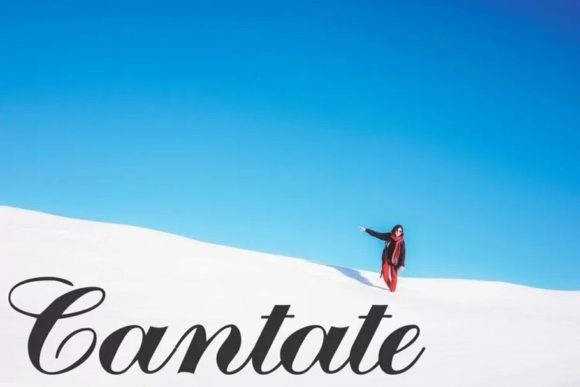
Cantate Font: The Ultimate Choice for Bold and Expressive Designs
In the world of typography, fonts play a crucial role in conveying the tone and personality of a design. When it comes to making a statement, a bold and expressive font is essential. This is where Cantate Font comes in – an extra bold script typeface that brings a unique and dynamic vibe to your designs. In this article, we’ll explore the features and benefits of Cantate Font, and why it’s the perfect choice for designers and crafters looking to elevate their projects.
The Power of Bold Typography
Cantate Font is all about making a statement. Its thick, distinctive strokes add a touch of personality to headlines, posters, and branding, making it a great choice for projects that demand attention and a strong visual impact. Whether you’re designing a logo, creating a poster, or crafting a brand identity, Cantate Font is the perfect tool to help you stand out from the crowd.
Key Features of Cantate Font
- Extra Bold Weight: Cantate Font features an extra bold weight that makes it perfect for headlines, titles, and other display text.
- Script Typeface: Cantate’s script typeface adds a touch of elegance and sophistication to your designs, making it perfect for luxury brands, high-end products, and creative projects.
- Distinctive Strokes: Cantate’s thick, distinctive strokes add a unique and dynamic vibe to your designs, making it perfect for projects that demand attention.
- Highly Legible: Despite its bold weight, Cantate Font is highly legible, making it perfect for use in a variety of design applications.
Use Cases for Cantate Font
Cantate Font is a versatile typeface that can be used in a variety of design applications. Here are some use cases where Cantate Font shines:
- Headlines and Titles: Cantate Font is perfect for use in headlines and titles, where a bold and expressive font is needed to grab attention.
- Posters and Flyers: Cantate Font is a great choice for posters and flyers, where a bold and eye-catching font is needed to stand out.
- Branding and Logo Design: Cantate Font can be used to create bold and memorable logos that make a statement.
- Packaging Design: Cantate Font can be used to create eye-catching packaging designs that stand out on store shelves.
Why Choose Cantate Font?
So why choose Cantate Font over other bold and expressive fonts? Here are a few reasons:
- Unique and Dynamic: Cantate Font offers a unique and dynamic vibe that sets it apart from other fonts.
- Highly Versatile: Cantate Font can be used in a variety of design applications, from headlines and titles to branding and packaging design.
- Easy to Read: Despite its bold weight, Cantate Font is highly legible, making it perfect for use in a variety of design applications.
In conclusion, Cantate Font is a bold and expressive script typeface that brings a unique and dynamic vibe to your designs. With its thick, distinctive strokes and highly legible design, Cantate Font is perfect for projects that demand attention and a strong visual impact. Whether you’re a designer, crafter, or DIY enthusiast, Cantate Font is a great choice for elevating your designs and making a statement.
Get Creative with Cantate Font
Ready to take your designs to the next level with Cantate Font? Here are some tips for getting creative with this bold and expressive font:
- Experiment with Different Sizes: Cantate Font looks great in a variety of sizes, from small and subtle to large and bold.
- Play with Color: Cantate Font looks great in a variety of colors, from bold and bright to subtle and muted.
- Mix and Match with Other Fonts: Cantate Font pairs well with a variety of other fonts, making it perfect for use in combination with other typefaces.